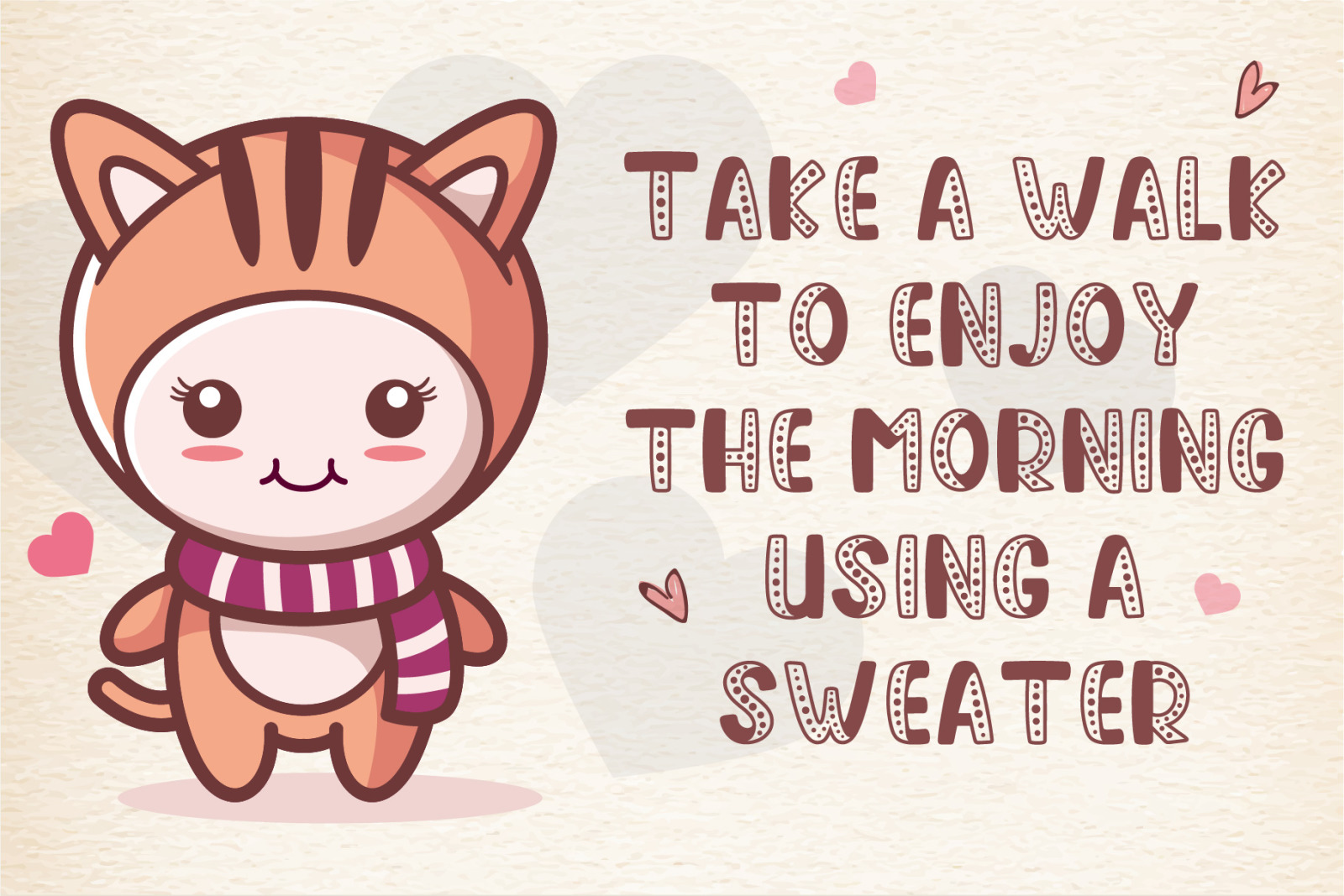
Sweet Dream Font
Sweet Dream is a crafting typeface font. This font can be used for products such as baby necessities, crafts, product packaging, quotes, product designs, craftsmen, labels, photography, watermarks, logos & branding. Everything can be accessed using software that supports Opentype, such as Adobe Indesign, Adobe CS Illustrator, Adobe Photoshop CC, and Corel Draw.